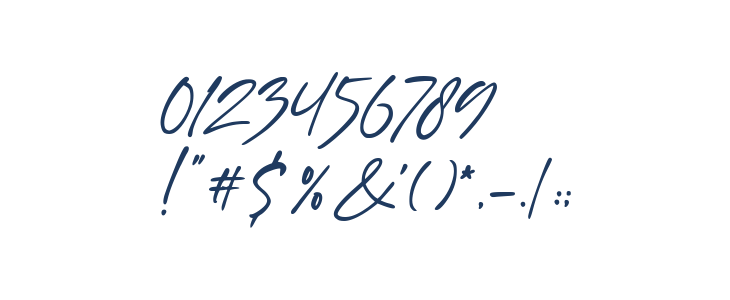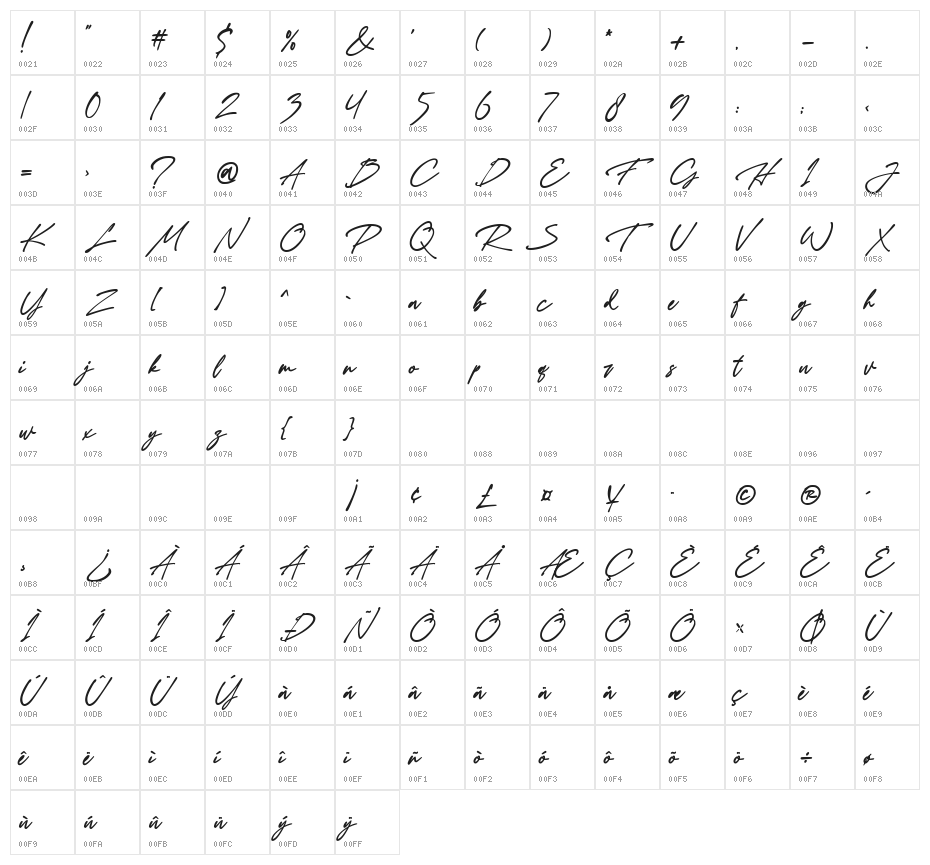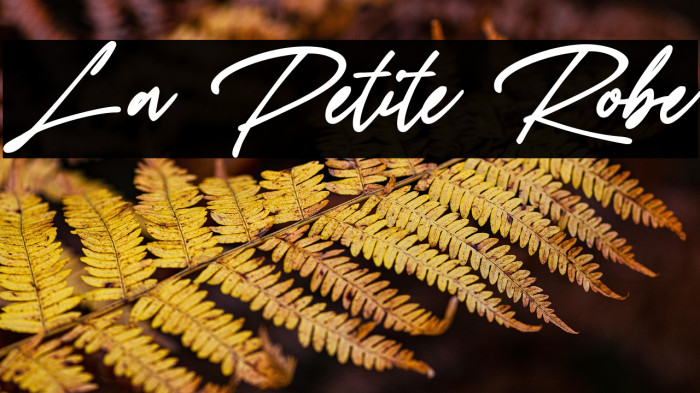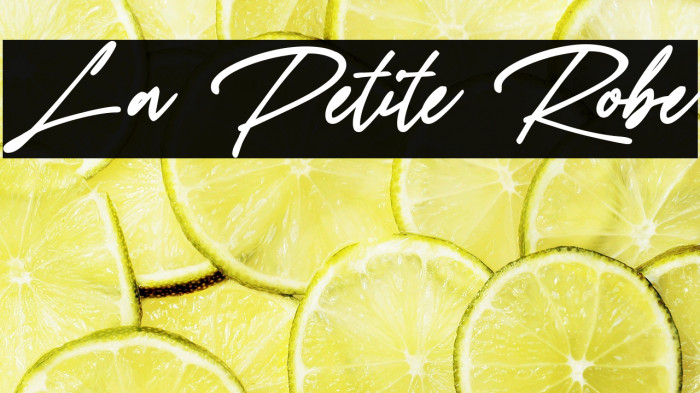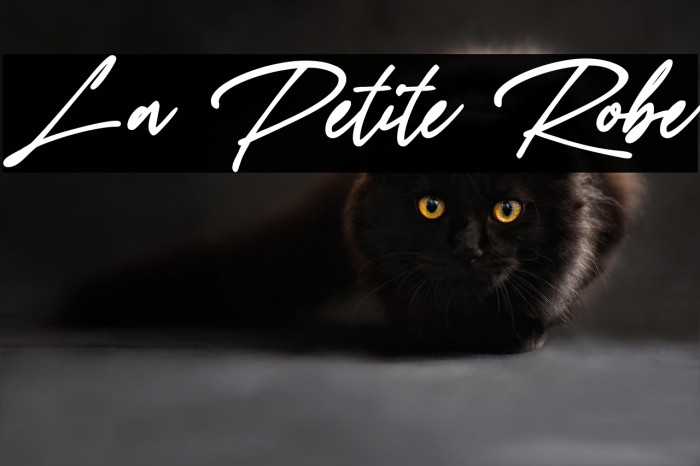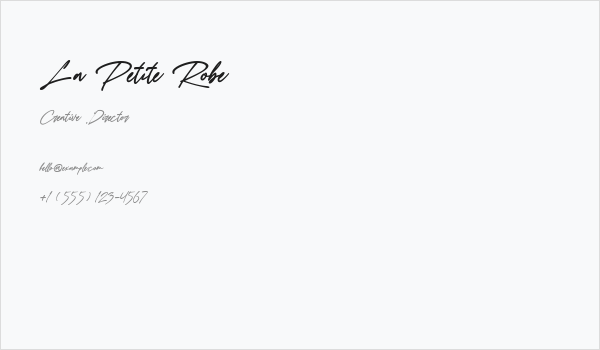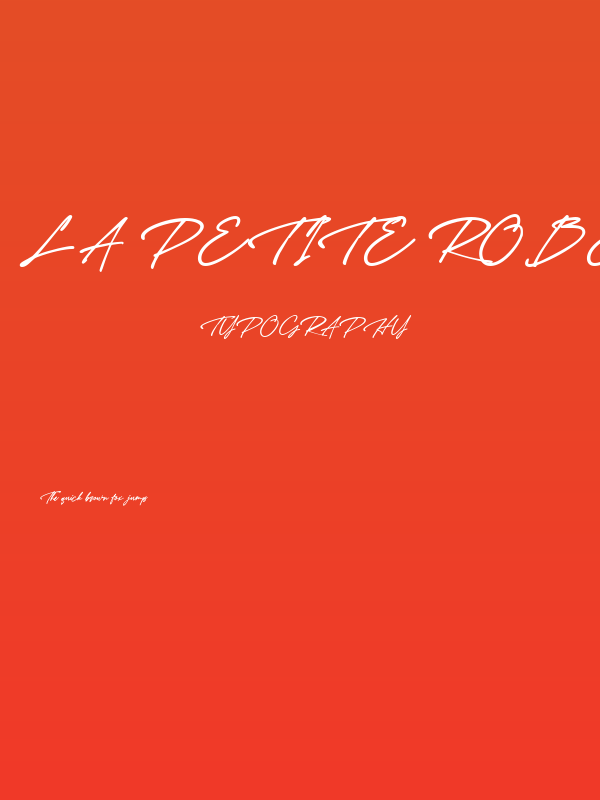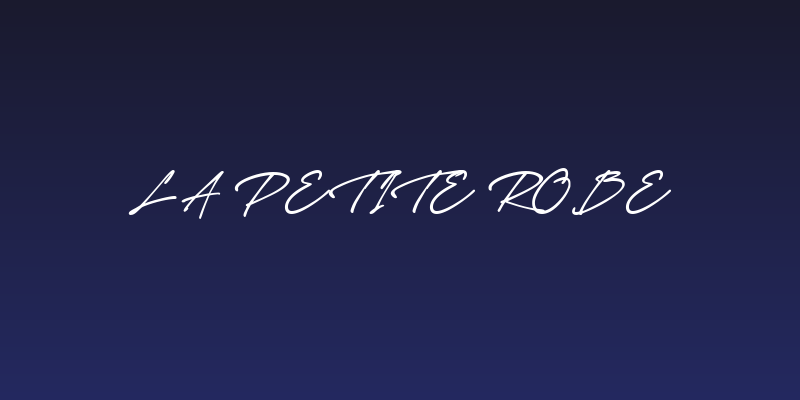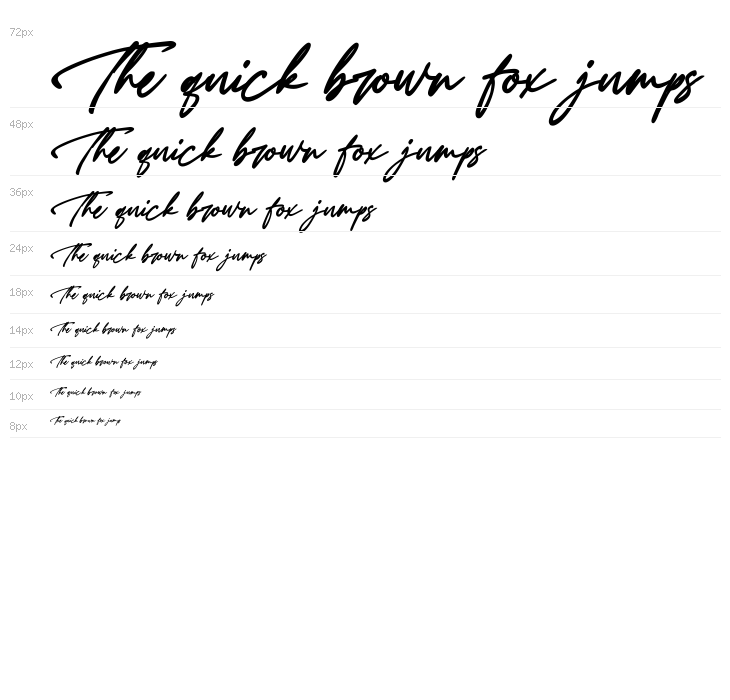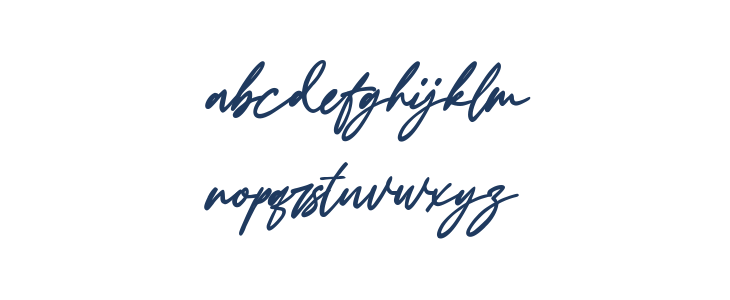
La Petite Robe Font
| Estilo general | Elegant, Decorative |
| Caso de uso | Logos, Invitations, Personal Branding |
| Proyectos propuestos | Ideal for wedding invitations, personal branding, elegant logos, and stylish social media graphics. |